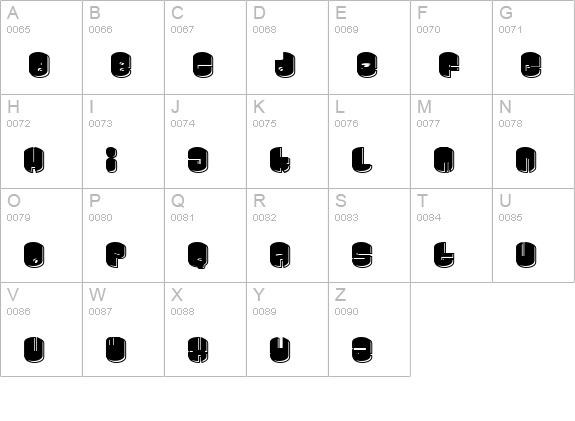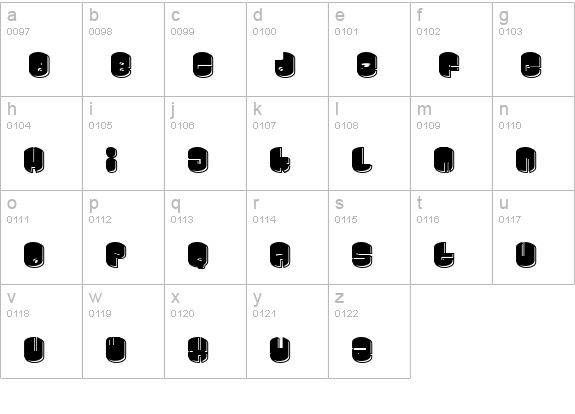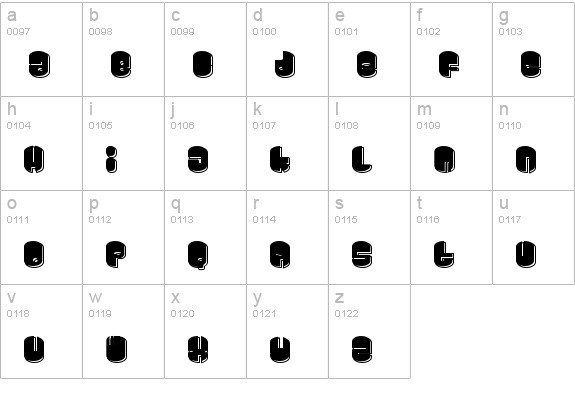
Cosmojunk Font Details
Cosmojunk font is a modern and stylish typeface that exudes a futuristic and space-inspired aesthetic. With its sleek lines and unique design elements, Cosmojunk is perfect for projects that require a touch of cosmic flair. This versatile font can be used for a variety of purposes, from branding to editorial design to web graphics. What sets Cosmojunk font apart is its ability to capture the essence of outer space while maintaining a clean and professional look. Whether you're working on a science fiction novel cover or a tech startup's logo, Cosmojunk will add a touch of sophistication and creativity to your designs. And the best part? Cosmojunk font is completely free to download at FontsMarket.com. So go ahead and give your projects a cosmic edge with Cosmojunk font today!